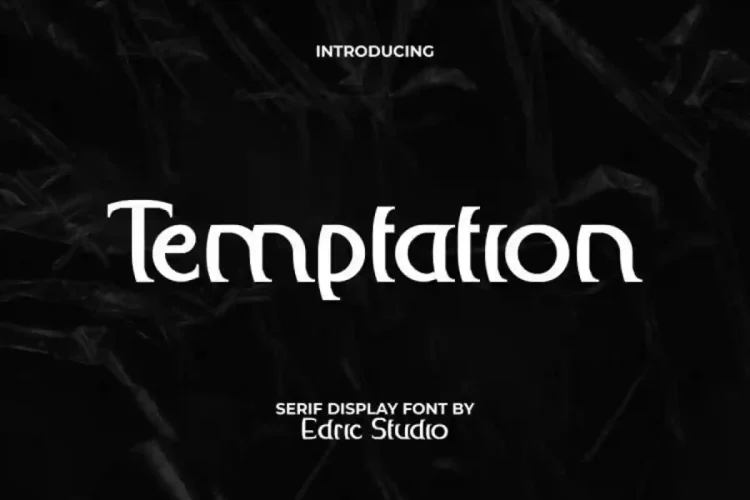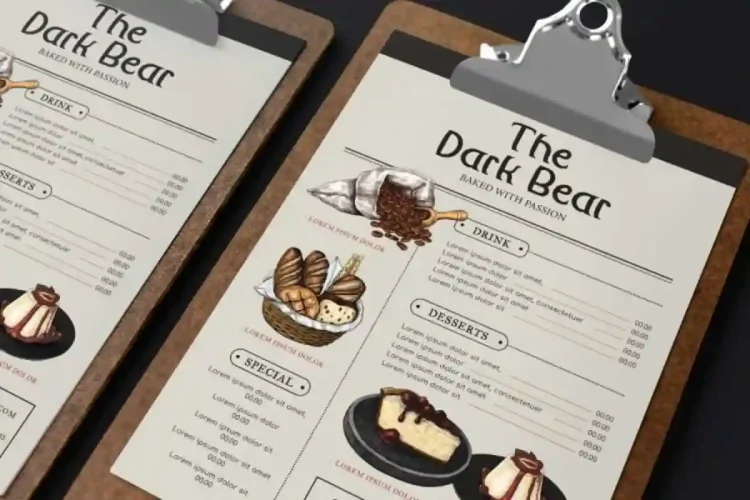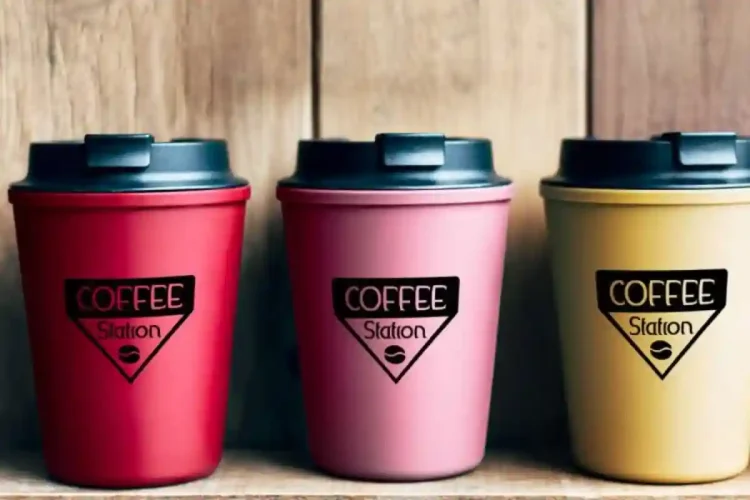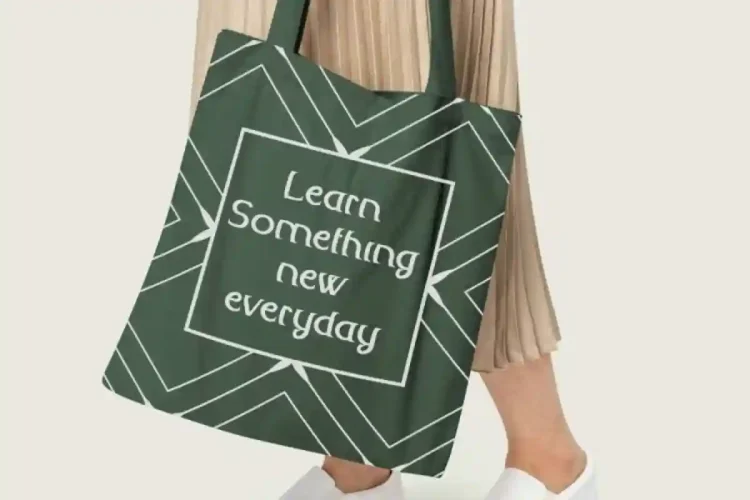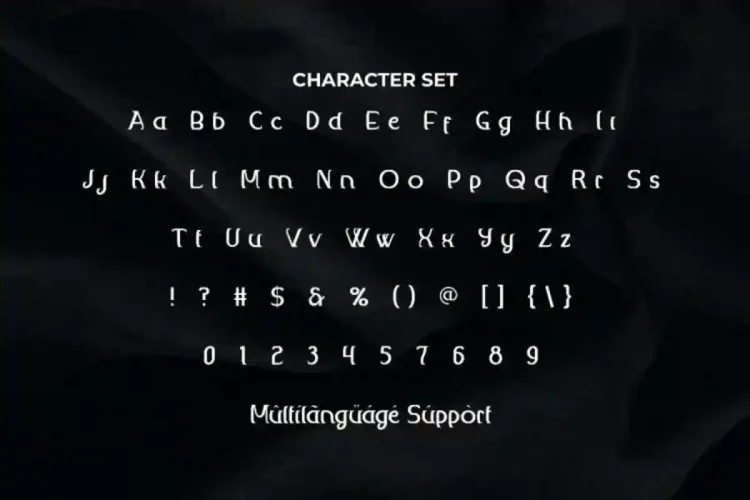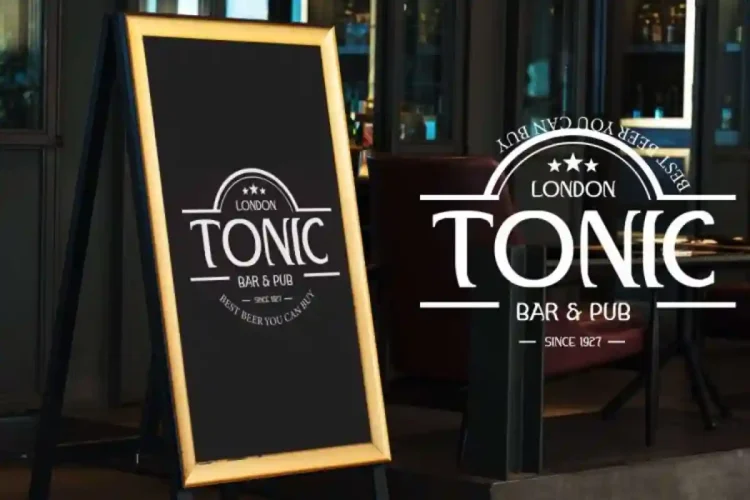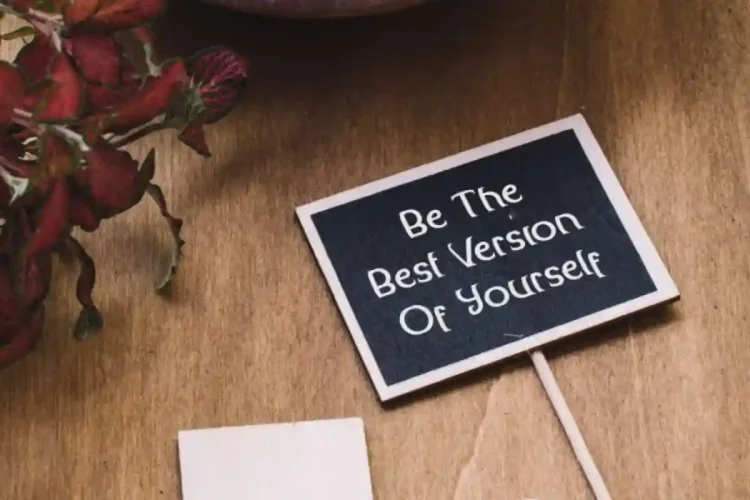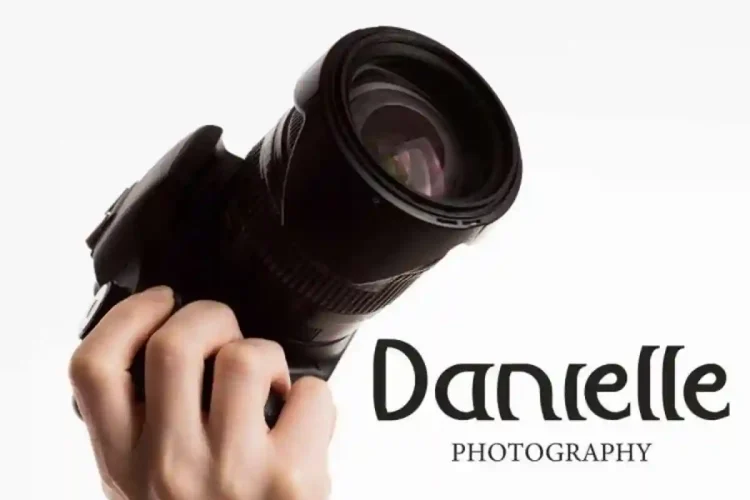
Temptation Modern Font a uniquely designed serif display typeface. With a touch of curvature of each character, making it creative for use in whatever type of business you are related to antique store, bakery, café, content creator, event or festival, fashion, film, gaming, graphic design, handicraft, movie, music, photography, printing, publishing, restaurant, travel, & much more!
Temptation Modern Display Font more than just a typeface – it’s a design statement. With a complete set of uppercase and lowercase letters, numbers, punctuation, and symbols, this font gives you the versatility to create standout projects.